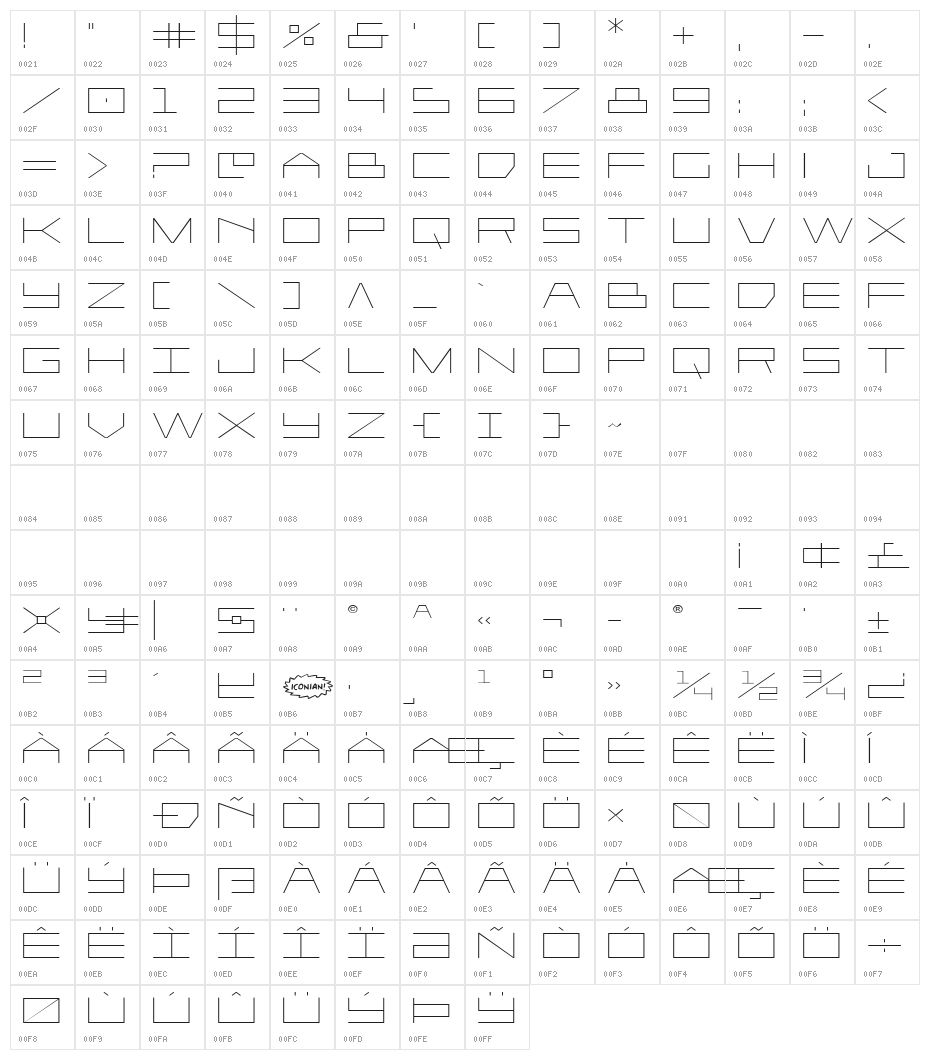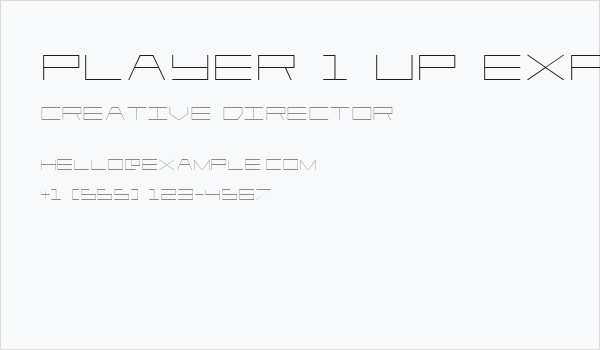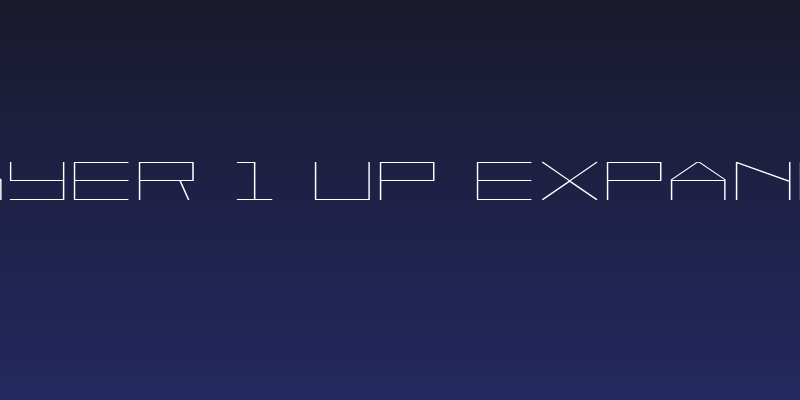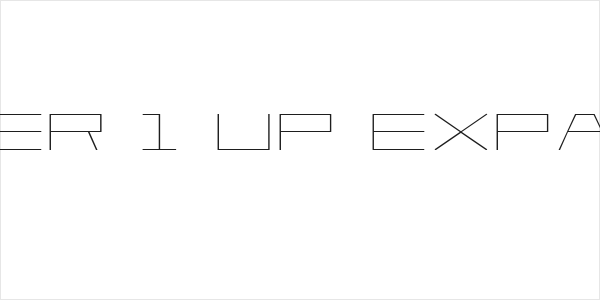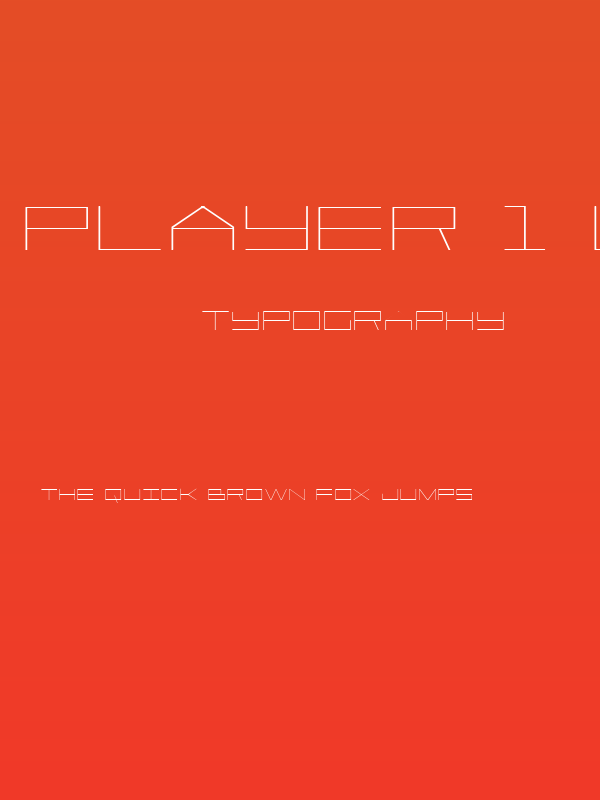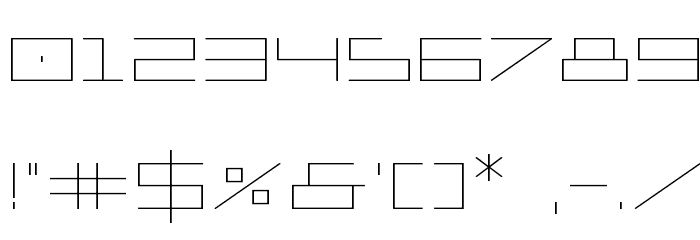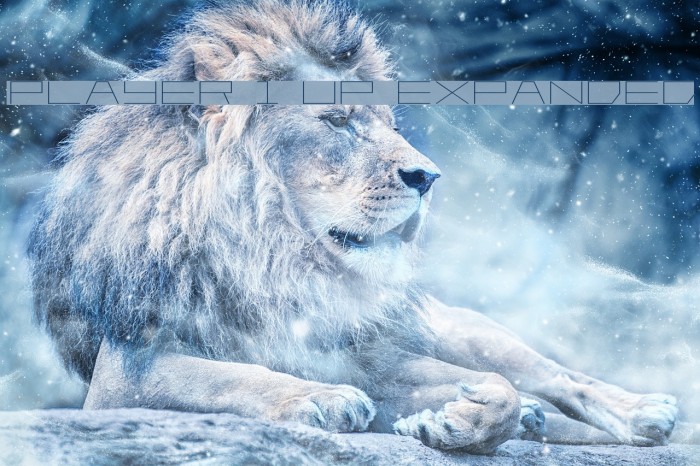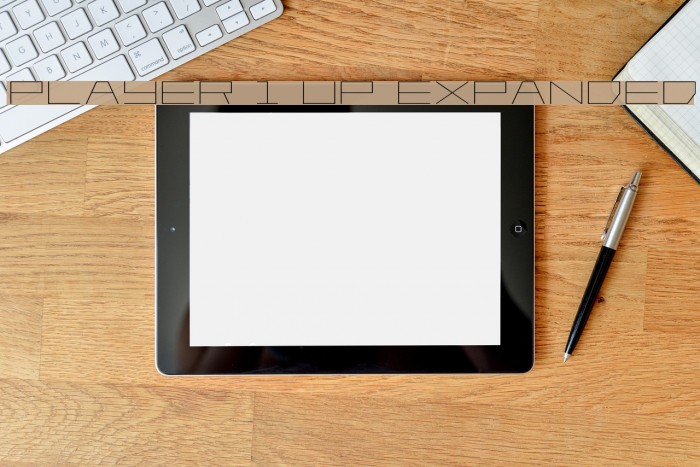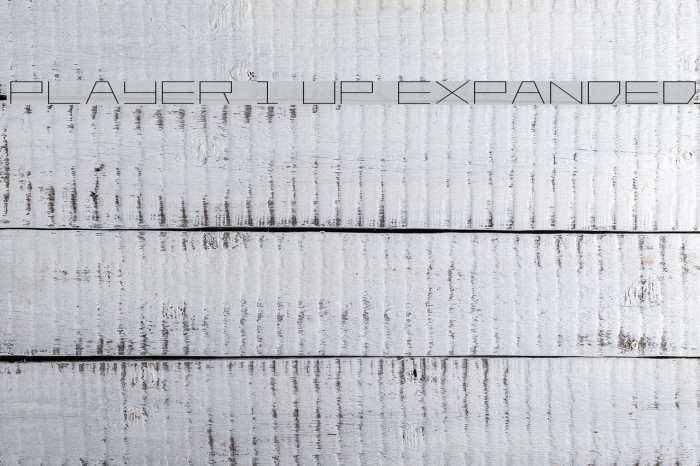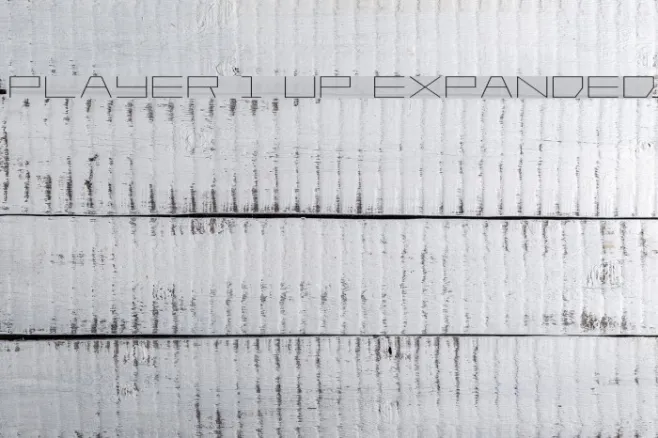
Player 1 Up Expanded Font
Player 1 Up Expanded Description
This font features a geometric and futuristic design with a distinctively angular and linear style. Each character is composed of straight lines and sharp angles, giving it a technical and modern appearance. The uppercase and lowercase letters maintain a consistent height, contributing to a uniform and structured look. The numerals and special characters follow the same design principles, ensuring cohesiveness across all elements. This font's minimalistic and clean lines make it suitable for digital and tech-themed projects.
| Use Case | Logos, Headlines, Digital interfaces |
| Proposed Projects | Ideal for tech branding, digital interfaces, video game titles, and futuristic posters. |